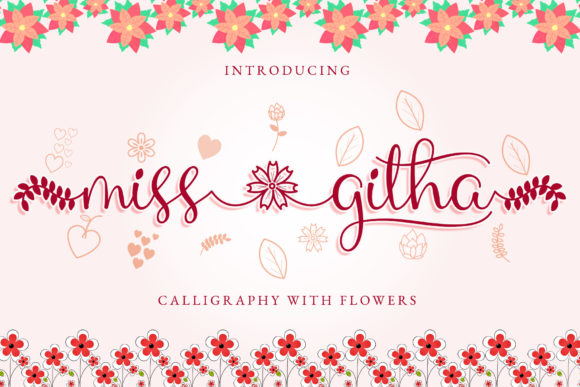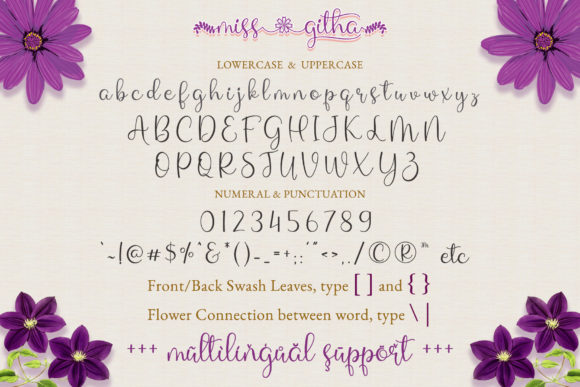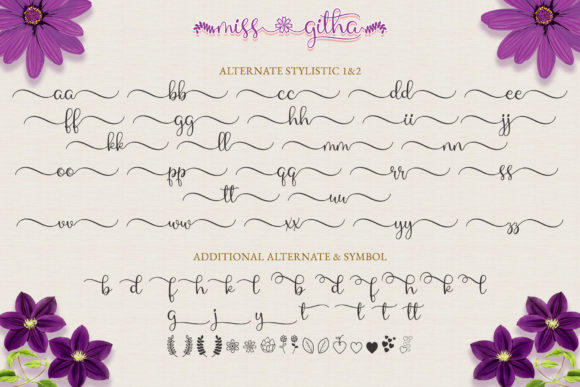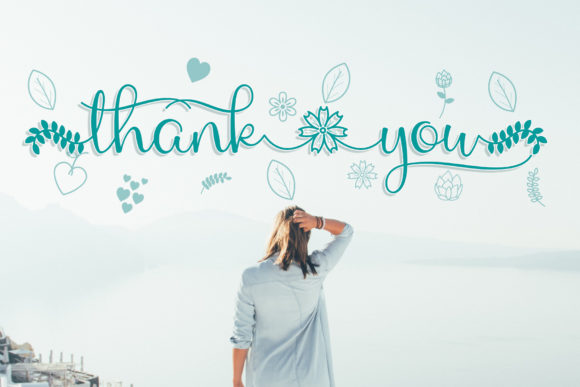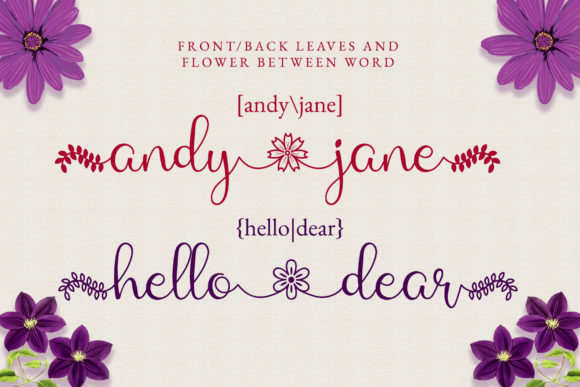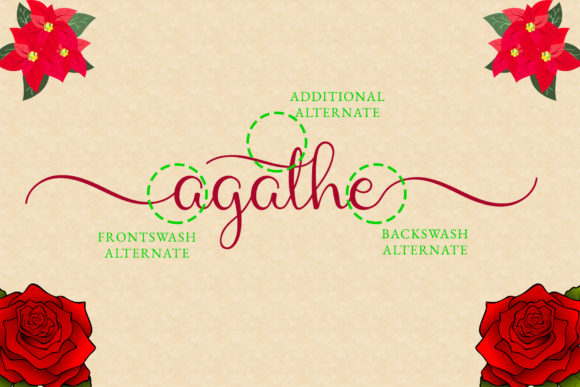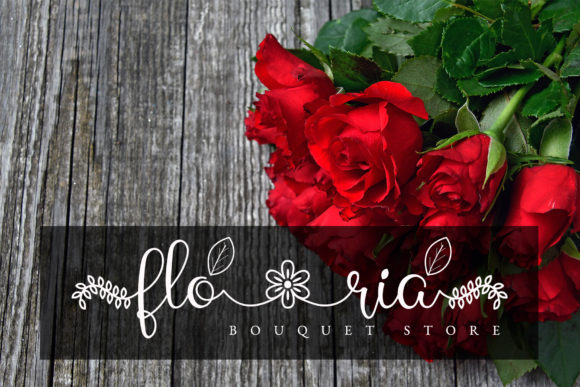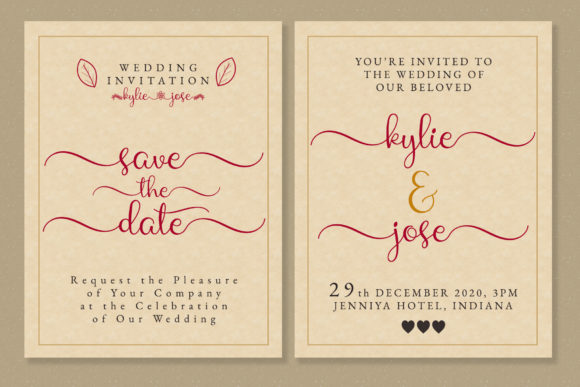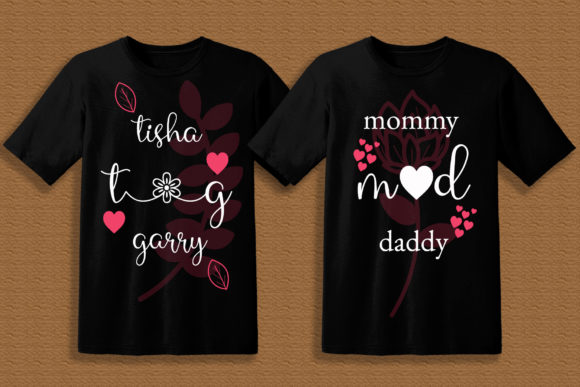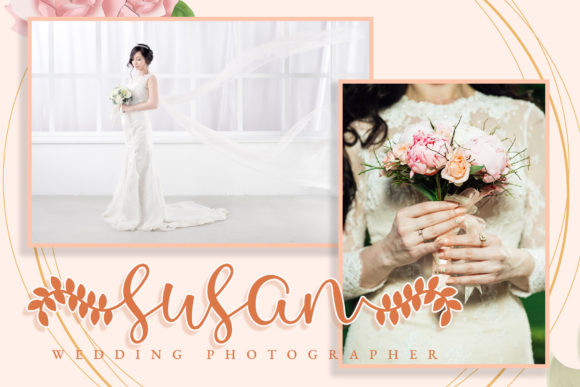
Miss Githa Font
About Miss Githa Font
Miss Githa is a magical handwritten font carefully created with a touch of elegance. It will elevate a wide range of design projects to the highest level, be it branding, headings, wedding designs, invitations, signatures, logos, labels, and much more!